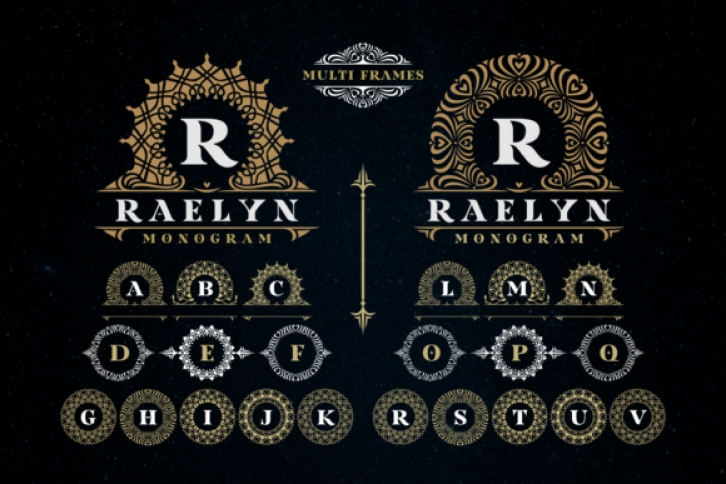
Raelyn Monogram is an amazing handwritten font with an incredibly friendly feel. It features special characters that will take your projects to the next level. Whether you’re looking for fonts for Instagram or calligraphy scripts for DIY projects, Raelyn Monogram will turn any creative idea into a true piece of art!